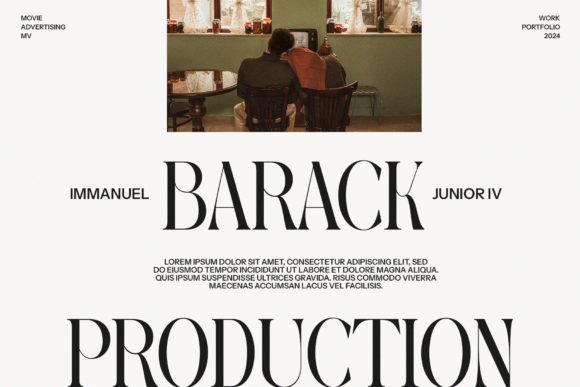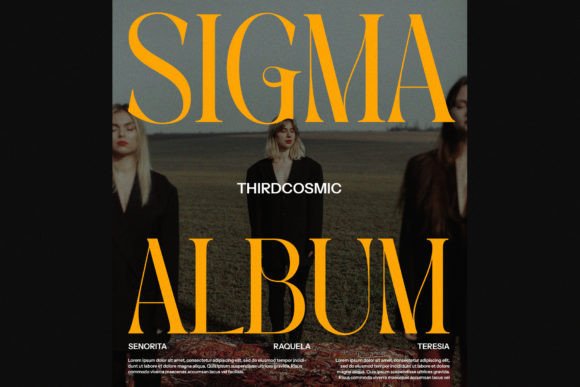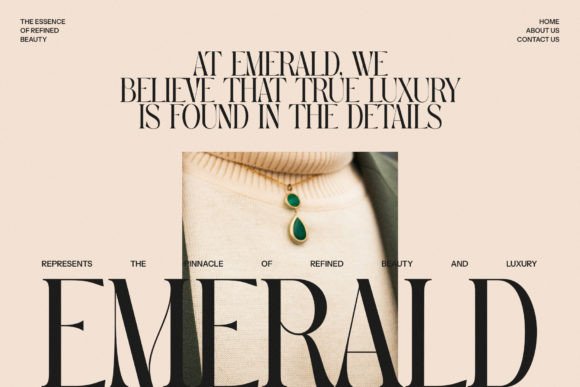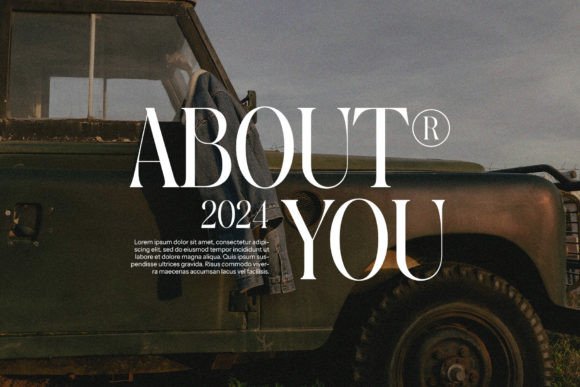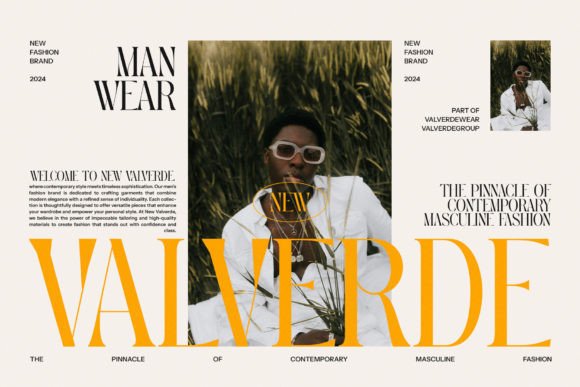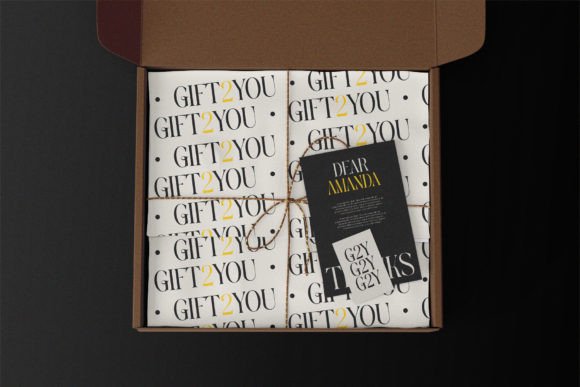
Introduction to Combat Font
Combat is a vintage serif font that combines classic elegance with a modern twist.
Its bold, distinctive letters are perfect for adding a touch of timeless style to any project .
Key Features of Combat Font
Why Choose Combat Font?
Combat Font offers exceptional quality and versatility, making it a valuable addition to your design toolkit. Whether you’re creating for personal projects or commercial use, Combat Font delivers professional results.